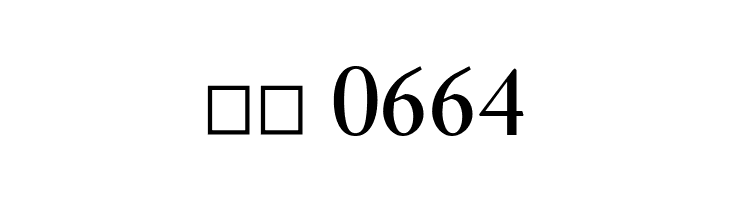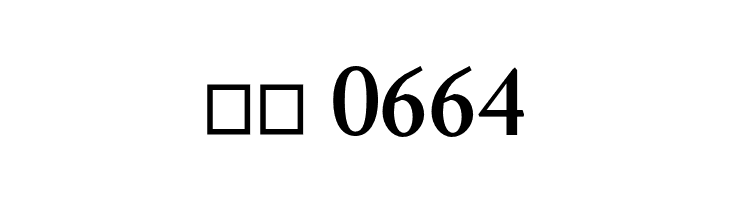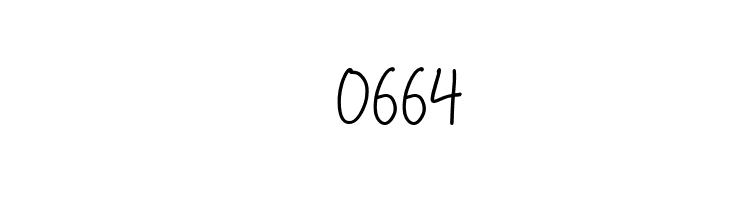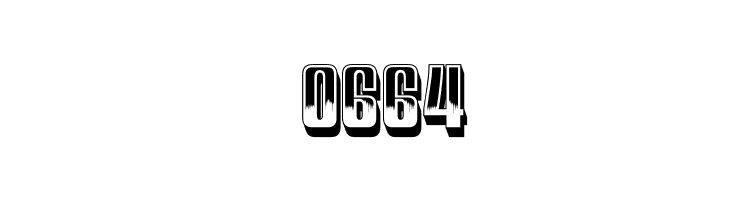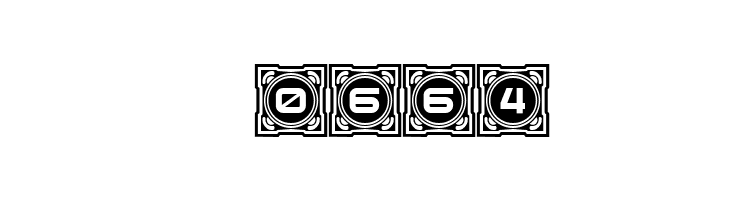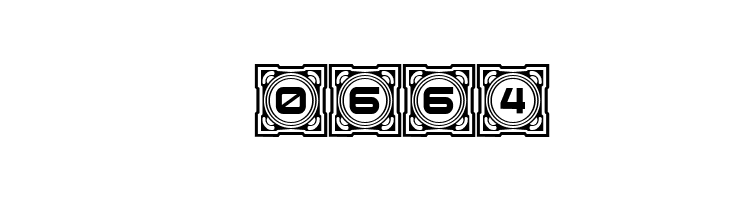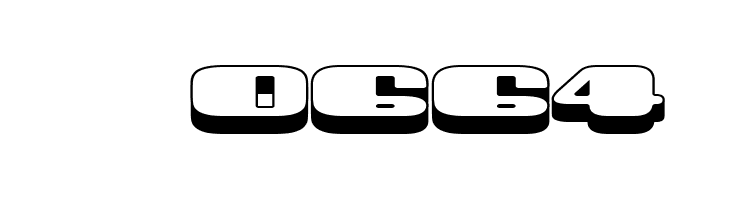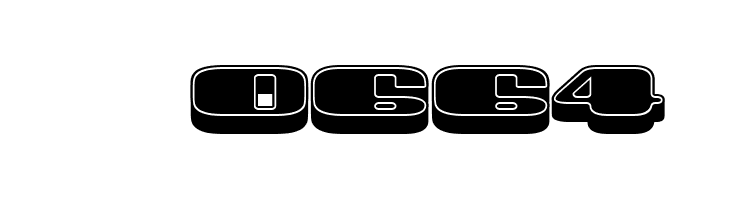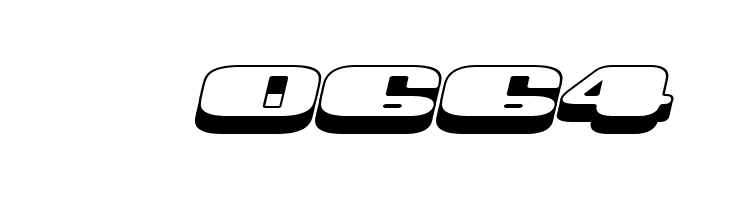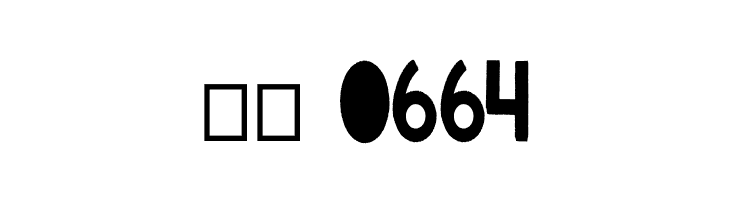
A playful, bold typeface with a whimsical, hand-drawn appearance.
Bold, rounded, and playful font with a dynamic tilt.
A playful, handwritten font with tall, narrow letterforms and a casual style.
A bold, geometric font with a modern, digital aesthetic.
A bold, three-dimensional font with a shadow effect, offering a modern and striking appearance.
A bold, italic font with a filled, rounded style and modern appeal.
A bold, rounded font with filled interiors and distinct outlines.
Bold, rounded font with a 3D effect and italic slant.
A bold, rounded font with a 3D effect and playful style.
A bold, geometric font with outlined characters for a modern, impactful look.
A bold, dynamic font with a modern and playful style.
A playful, cartoon-style font with bold, rounded characters.
A bold, dynamic font with a slightly condensed and slanted style.
A bold, dynamic font with thick strokes and a slightly condensed style.
A modern, slightly slanted font with elongated, rounded characters.
A bold, dynamic font with a slight slant and rounded edges.
A bold, decorative font with a three-dimensional effect and intricate detailing.
A bold, decorative font with ornate square frames around each character.
A bold, decorative font with geometric shapes and intricate borders, ideal for impactful display use.
A decorative font with intricate geometric patterns and bold, framed letters.
A bold, three-dimensional font with a layered, geometric design.
A classic serif font with elegant strokes and moderate contrast, offering a timeless and sophisticated look.
A classic serif font with semi-bold weight, offering elegance and readability.
A bold, textured font with a 3D shadow effect, perfect for impactful designs.
A flowing, cursive font with elegant loops and swashes, perfect for artistic projects.
A playful and elegant script font with flowing curves and artistic flair.
A playful, handwritten font with dynamic, uneven strokes.
A bold, geometric font with characters enclosed in circles, connected by lines.
A bold, hand-drawn font with a rough texture and rounded edges.